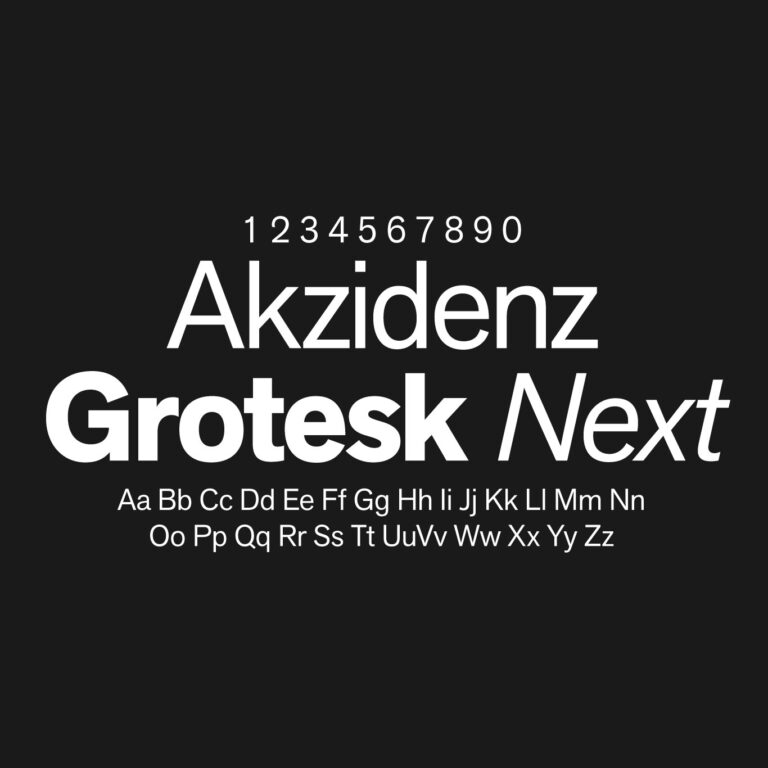
Akzidenz Grotesk Next is a classic grotesque sans-serif typeface with a clean, neutral and highly functional design. Its balanced proportions, strong readability and wide style range make it useful for corporate identity systems, posters, magazines, signage, packaging, website headings, editorial design and modern branding projects that need a serious and timeless sans-serif look.
Font Name: Akzidenz Grotesk Next
Font Type: Sans Serif
Category: Grotesque Sans Serif
Visual Style: Classic, neutral, clean, professional, timeless
Best For: Branding, posters, editorial layouts, corporate identity, signage, packaging, websites and presentation design
Foundry: Berthold
Akzidenz Grotesk Next Character Map